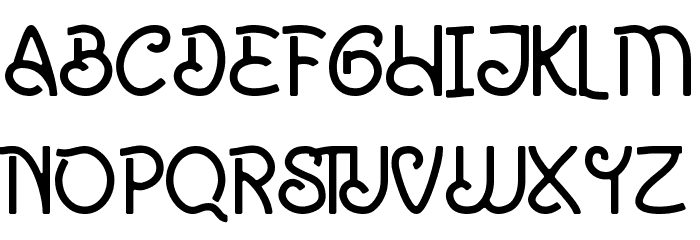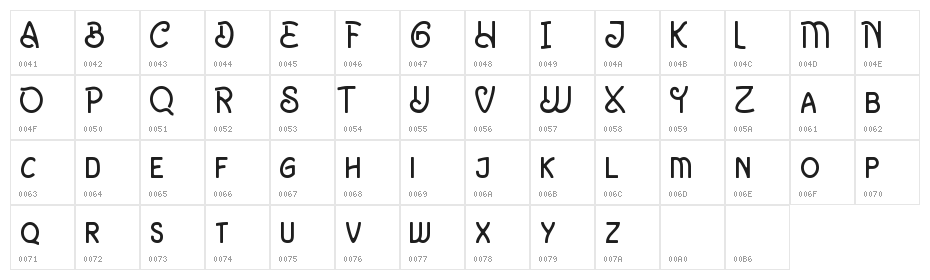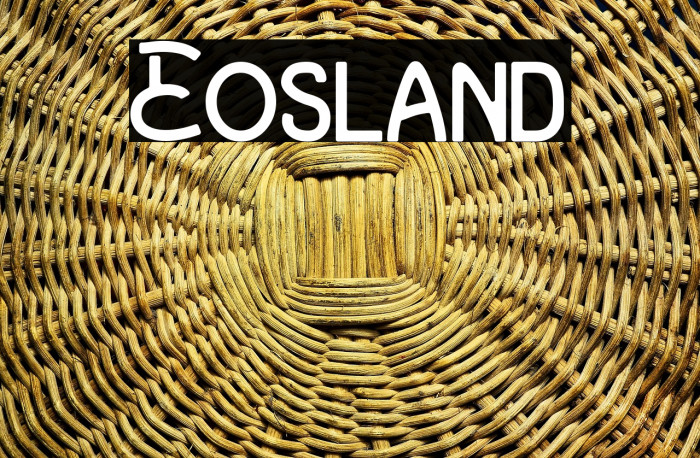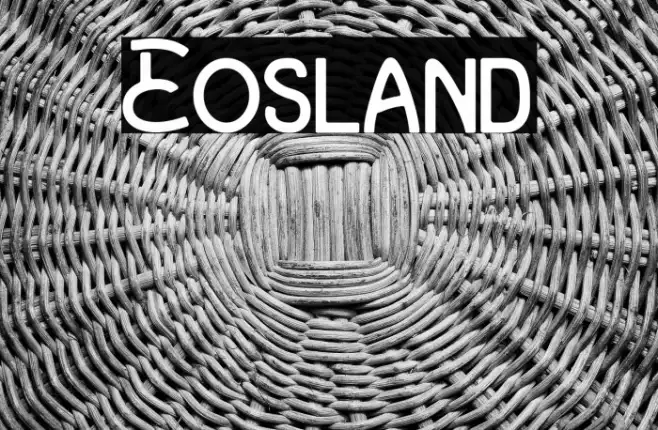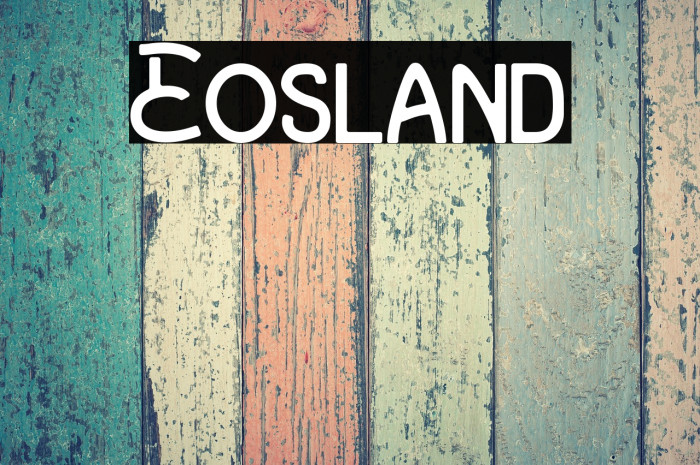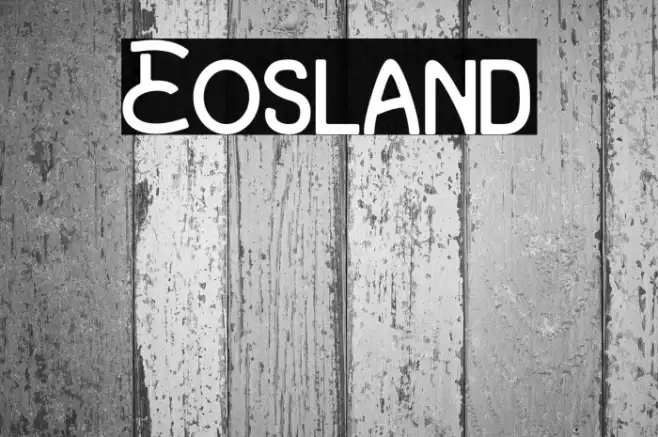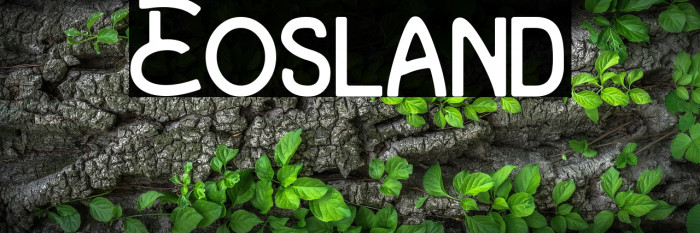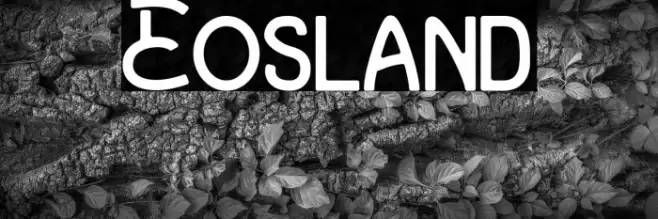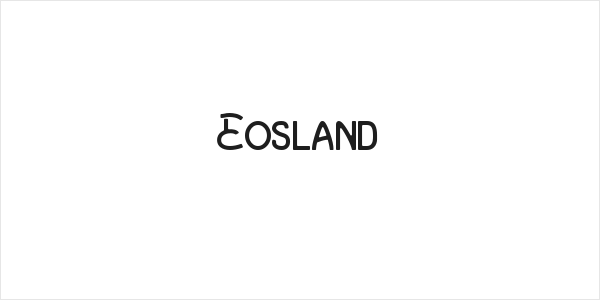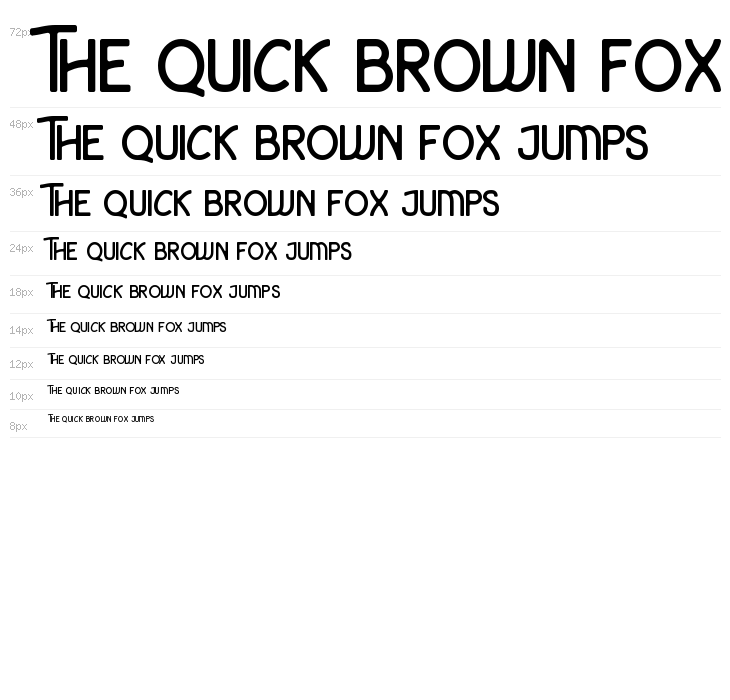
Eosland Font
Eosland Description
This font features a unique blend of modern and decorative elements, characterized by its bold, rounded strokes and playful curves. The uppercase letters exhibit a consistent height with a slight whimsical flair, particularly noticeable in letters like 'G', 'J', and 'Q'. The lowercase letters maintain a similar style, providing a cohesive look across different text sizes. The numerals are distinct and easily readable, complementing the overall design. Special characters are creatively integrated, adding to the font's versatility. This font's playful yet structured appearance makes it suitable for a variety of creative projects.
| Proposed Projects | Ideal for children's books, playful branding, posters, and creative invitations. |